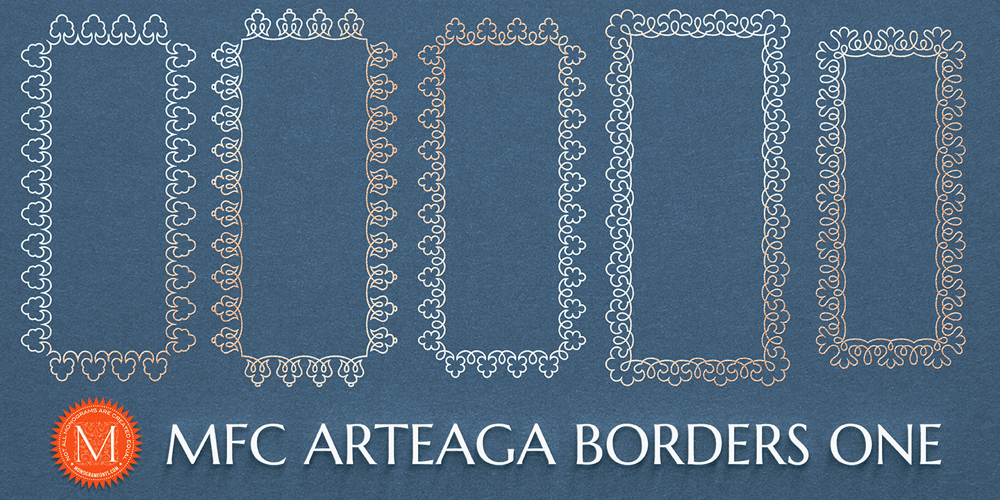
MFC Arteaga Borders One
MFC Arteaga Borders One font
MFC Arteaga Borders One Font Family was designed by Jim Lyles, Brian J. Bonislawsky and published by Monogram Fonts Co.. MFC Arteaga Borders One contains 1 styles and family package options. The inspiration source for Arteaga Borders One is a collection of the embroidery and beading patterns from a vintage embroidery patterns catalog dating back to 1865. The original collection of patterned sides has been expounded upon to create matching corners that continue the fluidity of the ornate forms. Download and view the “MFC Arteaga Borders One Guidebook” if you would like to learn a little more.